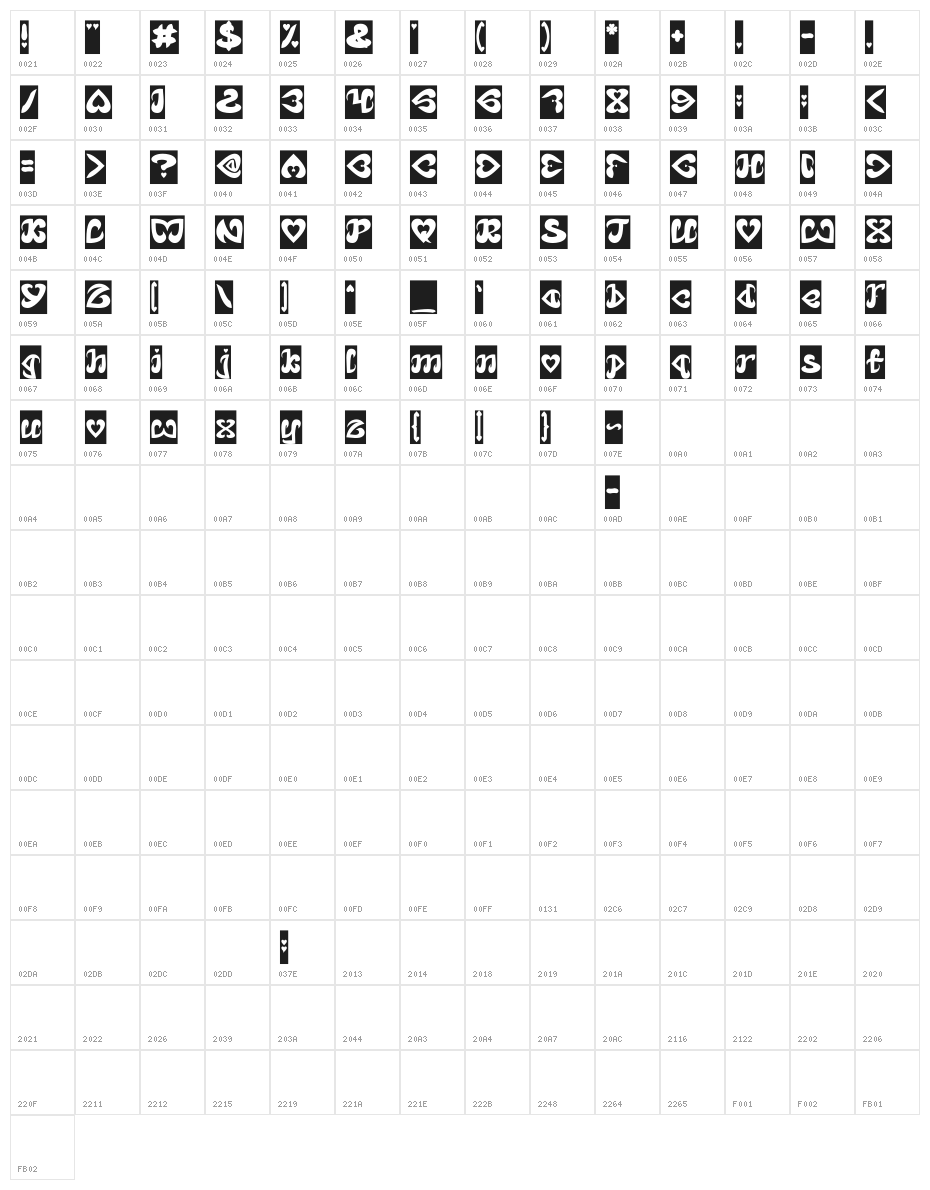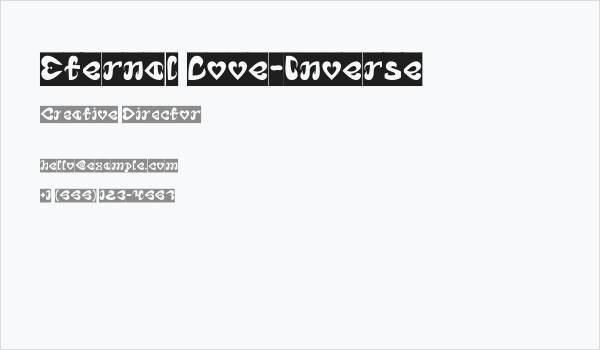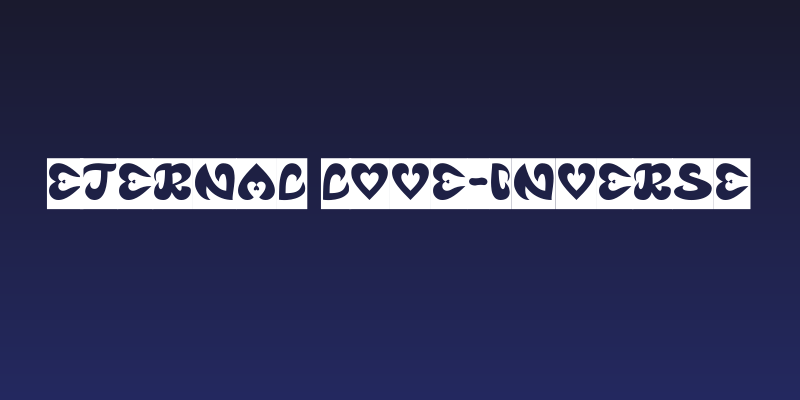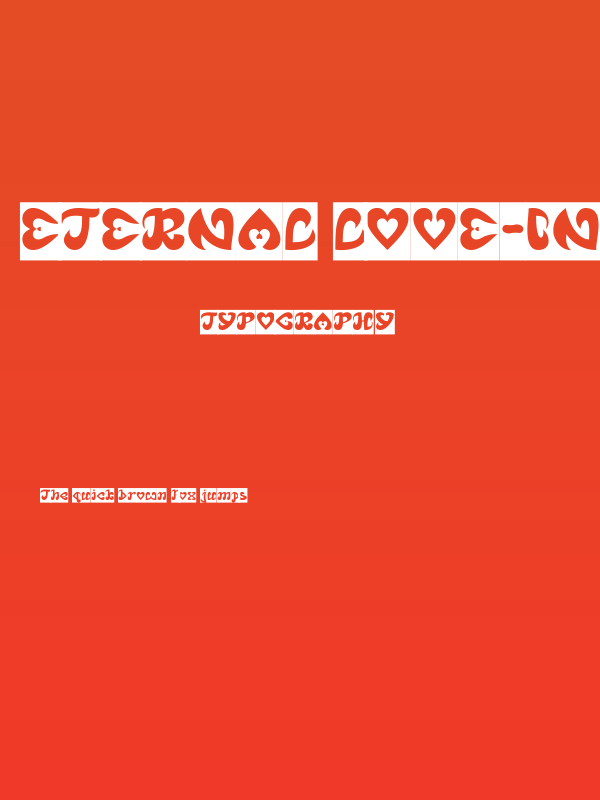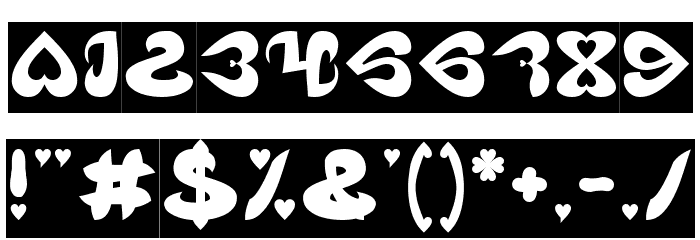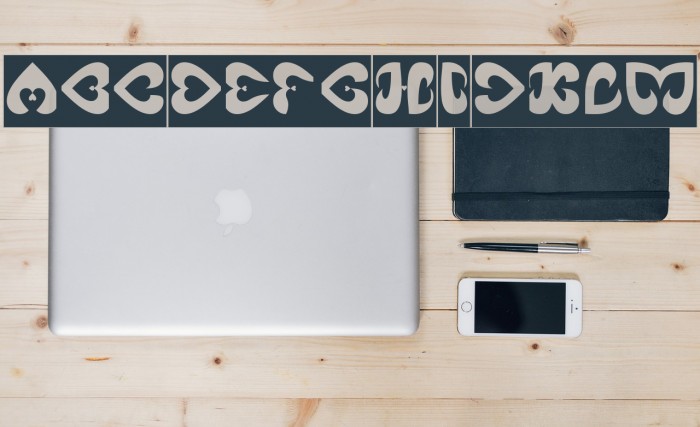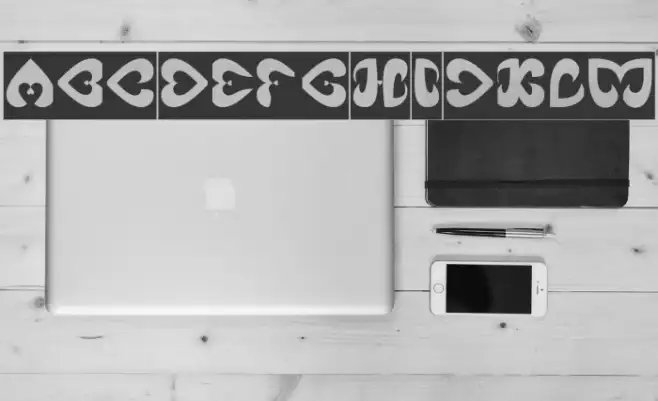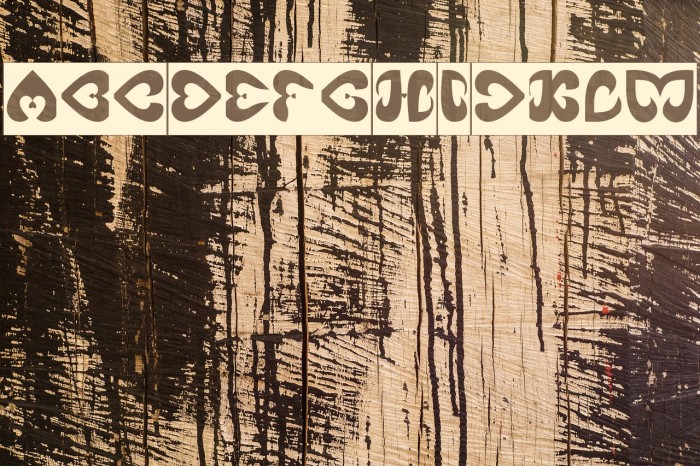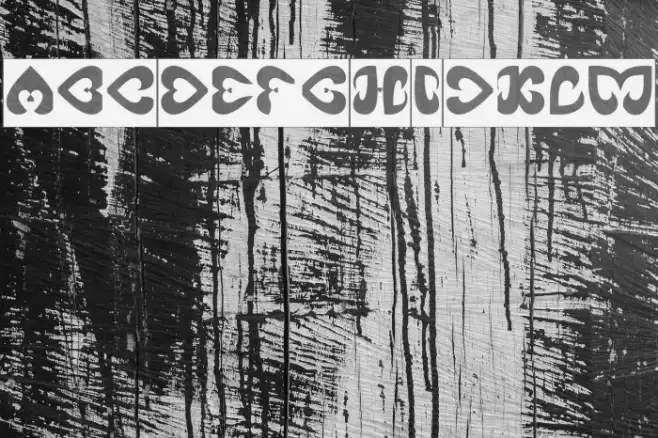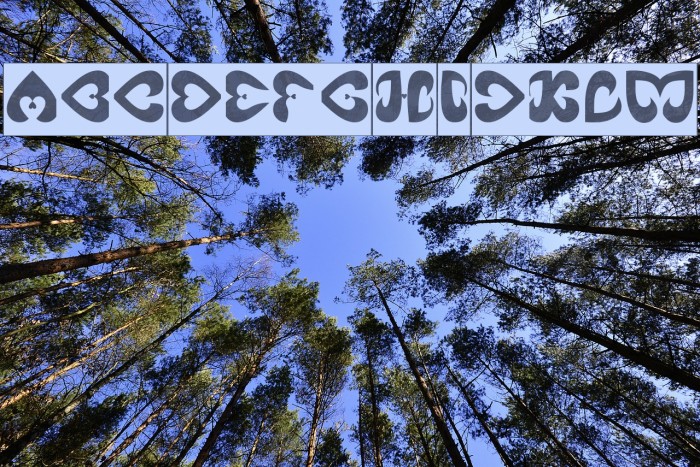
Eternal Love-Inverse Font
Eternal Love-Inverse Description
This font features a playful and romantic design, with each character incorporating heart shapes and whimsical curves. The letters are bold and have a decorative flair, making them stand out with a unique personality. The uppercase and lowercase letters maintain a consistent style, with the heart motif present throughout. Numbers and special characters are also designed to match the overall theme, adding a cohesive look to the entire set. This font is perfect for projects that require a touch of love and creativity, such as wedding invitations, Valentine's Day cards, or romantic-themed branding.
| Proposed Projects | Ideal for wedding invitations, Valentine's Day cards, romantic branding, and playful graphic designs. |